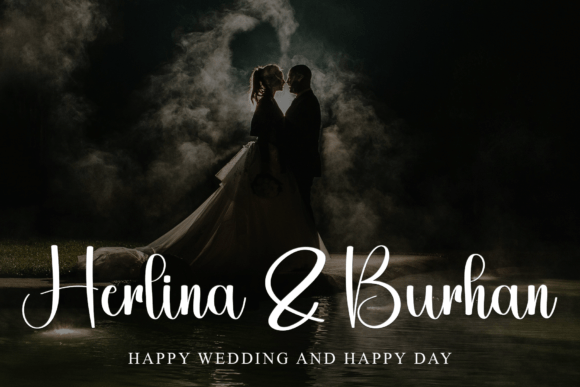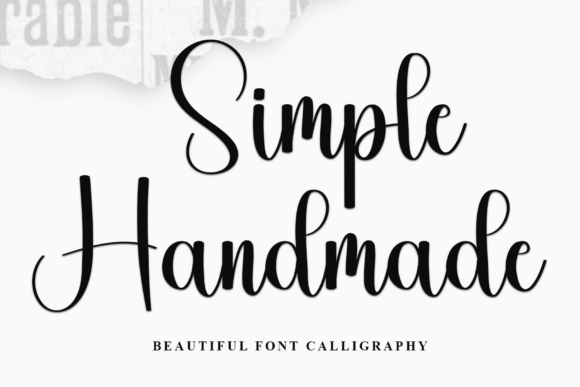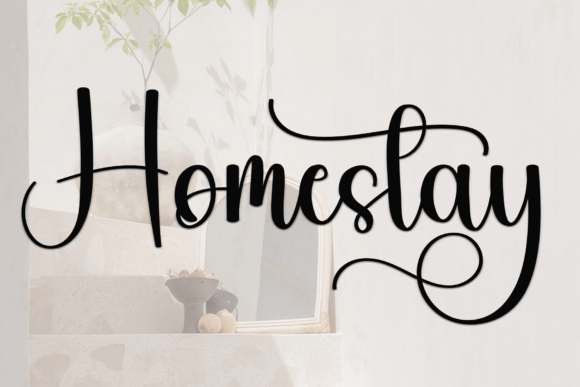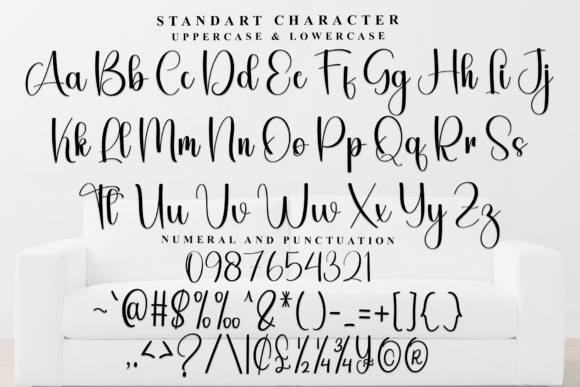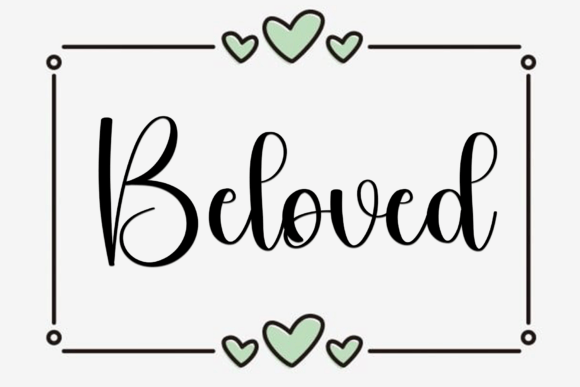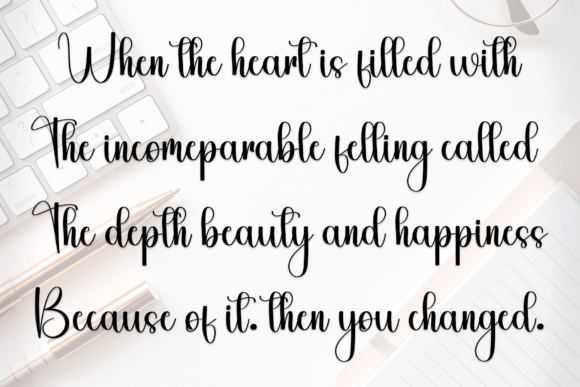
Introduction to Merry Graduation Font
Have you ever stared at a blank canvas, waiting for the perfect font to bring your creative project to life? For many designers, that moment of inspiration is what drives them to create something truly special. And for those looking to add a touch of elegance to their designs, the Merry Graduation Font is the perfect choice.
This high-quality, handwritten font is a timeless design resource that will elevate any project to the next level. With its unique and beautiful touch, the Merry Graduation Font will make your design come alive and leave a lasting impression. Whether you’re creating eye-catching logos, branding, or quotes, this font is sure to be a valuable addition to your design arsenal.
Key Features of Merry Graduation Font
- High-quality design: The Merry Graduation Font is a premium design resource that offers a unique and creative touch to any project.
- Unique characteristics: The Merry Graduation Font features a playful and celebratory design, making it perfect for graduation-themed projects, parties, and events.
- Perfect for creative projects: This font is ideal for designers, artists, and individuals looking to add a touch of creativity and personality to their projects.
Honest Review: Merry Graduation Font
I recently stumbled upon the Merry Graduation Font, a high-quality design resource perfect for any creative project. The first thing that caught my eye was its playful and celebratory vibe, making it an ideal choice for graduation invitations, announcements, and more.
- ✨ Unique and festive design that’s sure to stand out
While the Merry Graduation Font is a great addition to any designer’s toolkit, there are a few limitations to be aware of. For example, the font may not be suitable for formal or professional projects, and the design may feel a bit too “cute” for some tastes.
- ⚠️ May not be suitable for formal or professional projects
- ⚠️ Design may feel too “cute” for some tastes
Overall, I’m impressed with the Merry Graduation Font. Its high-quality design and free download make it a valuable resource for designers working on creative projects. While it may not be perfect for every project, it’s definitely worth checking out for its unique and festive vibe.
Merry Graduation Font
The Merry Graduation Font is a high-quality design resource perfect for creative projects that require a touch of elegance and sophistication. This font features a transparent background, making it easy to customize and integrate into various designs.
To get the most out of the Merry Graduation Font, try combining it with other design elements, such as graphics and images, to create a unique and eye-catching design. You can also use the font in a variety of contexts, including graduation invitations, certificates, and banners.
The Merry Graduation Font is commonly used in creative projects related to graduation, such as invitations, certificates, and banners. It’s also suitable for use in other contexts, such as academic and professional settings, where a touch of elegance and sophistication is desired.